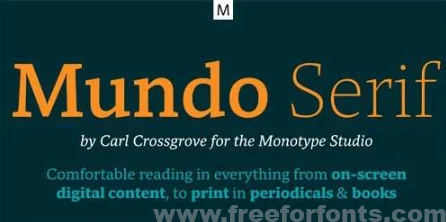
Mundo Serif Font Family
Mundo Serif Font is perfect for international business communications, global corporate branding, multilingual publications, world news magazines, diplomatic documents, international conference materials, global education platforms, multinational company reports, worldwide marketing campaigns, and universal design projects.
Mundo Serif Font is exciting because it embodies global connectivity and international sophistication through universally appealing letterforms that transcend cultural boundaries while maintaining classical serif elegance with worldwide accessibility. This thoughtfully designed typeface combines traditional serif readability with contemporary international functionality, making it perfect for organizations that want to communicate global reach, cultural inclusivity, and universal understanding.
The Mundo Serif Font family includes comprehensive weights from Light to Bold with international character styling, featuring multilingual support and global design elements. The font showcases universal design details, internationally-optimized proportions, and culturally-neutral characteristics that create a comprehensive typographic system for global and multicultural brand applications.
The global sophistication of Mundo Serif Font makes it an invaluable tool for multinational corporations, international organizations, and global service providers that need typography capable of communicating worldwide reach and cultural inclusivity. The font's universal character helps establish connections with diverse international audiences while maintaining professional credibility across all cultural and linguistic boundaries.
International businesses, global nonprofits, and multinational brands consistently choose Mundo Serif Font for its ability to convey worldwide sophistication and international credibility through typography. The font excels in applications where establishing global authority and multicultural appeal are essential to brand positioning, making it particularly effective for international services, global education, and worldwide organizations targeting diverse international audiences.
This font's comprehensive character set includes internationally-styled letterforms, global numerals, universal punctuation marks, and multicultural symbols that support authentic worldwide typography composition. The consistent global styling maintains the international theme throughout all characters while ensuring professional readability across all multinational and global design projects requiring Mundo Serif Font Free Download functionality.